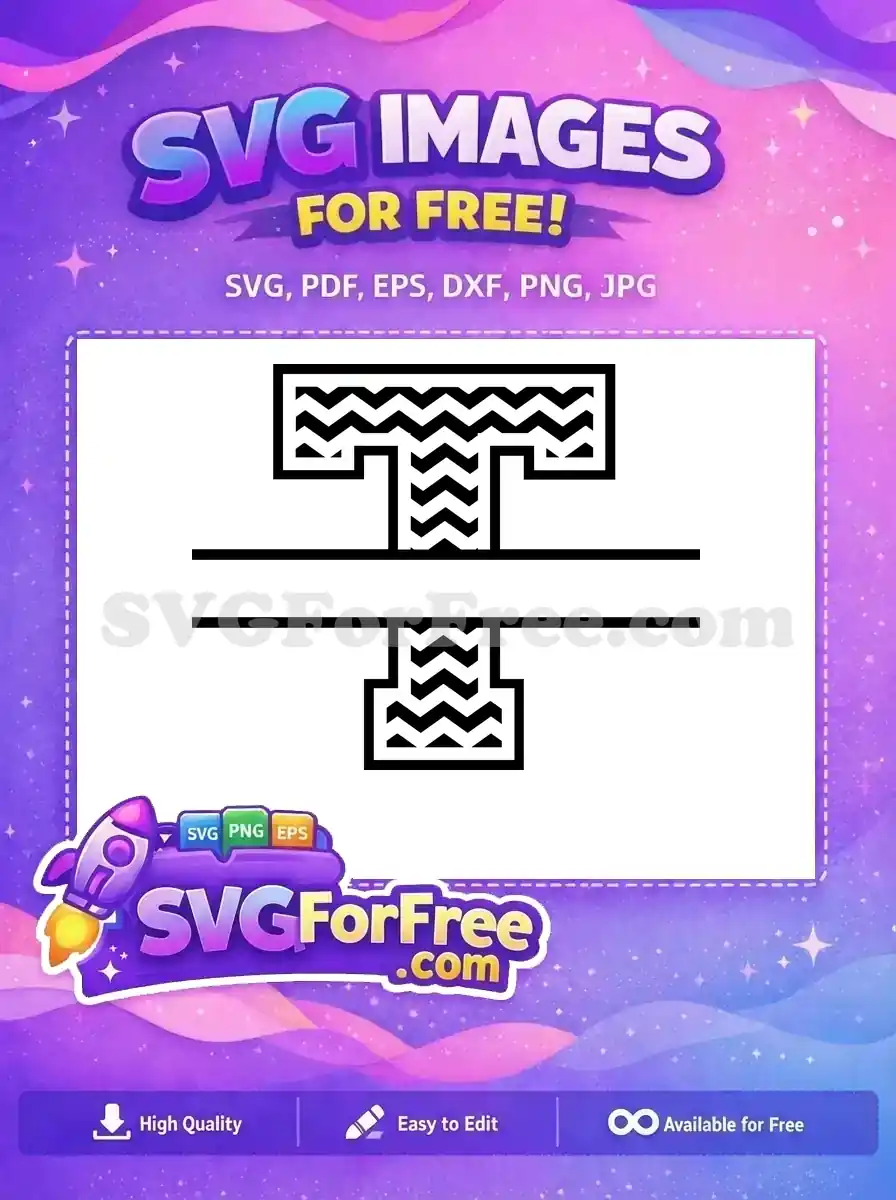
Free Zigzag Black Fonts Free Monogram Initial Free SVG – Instant Download
A stylized capital ‘T’ that is split in the middle and filled with a wavy line pattern. A modern free vector.
Free Zigzag Black Fonts Free Monogram Initial Free SVG